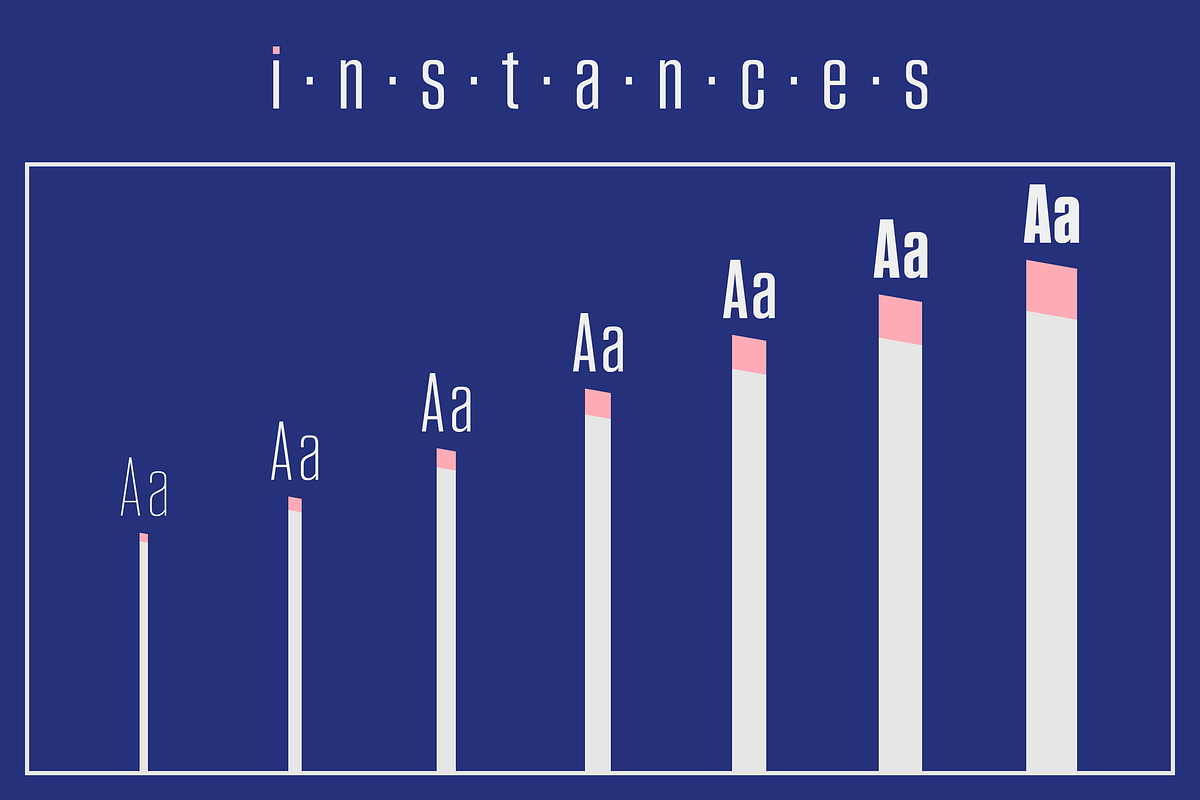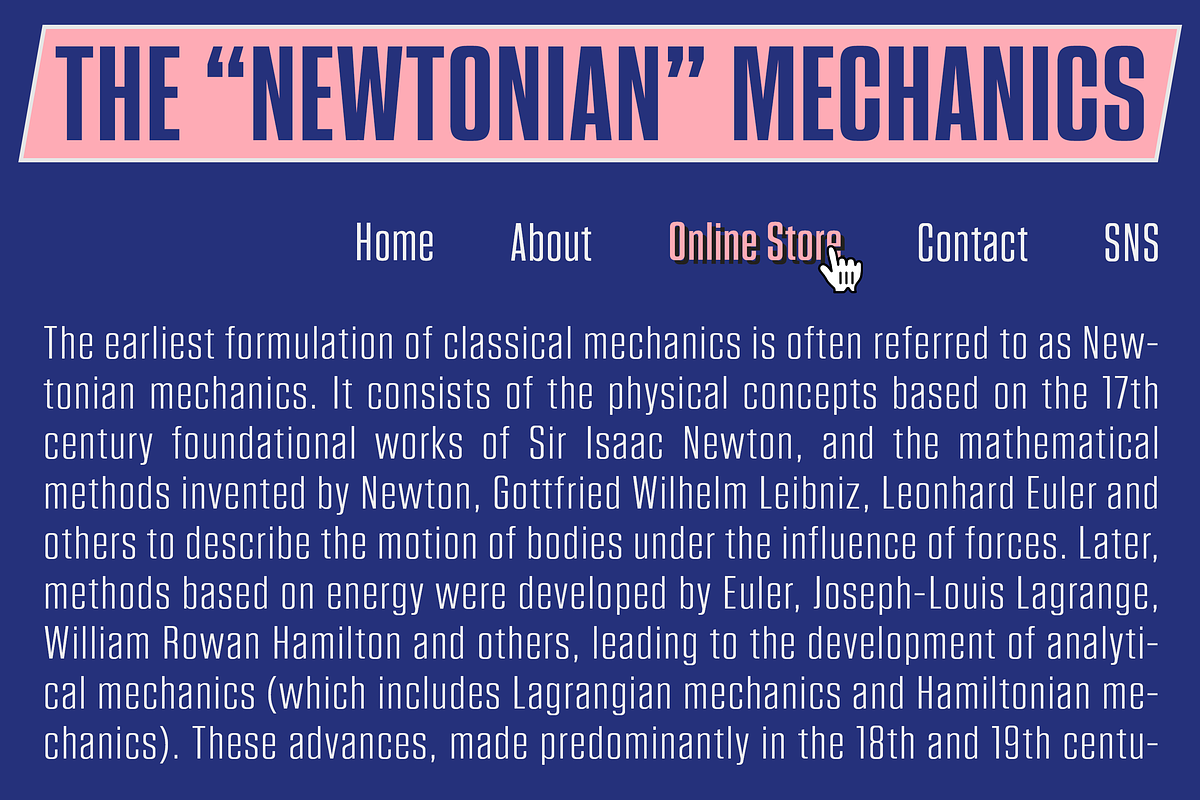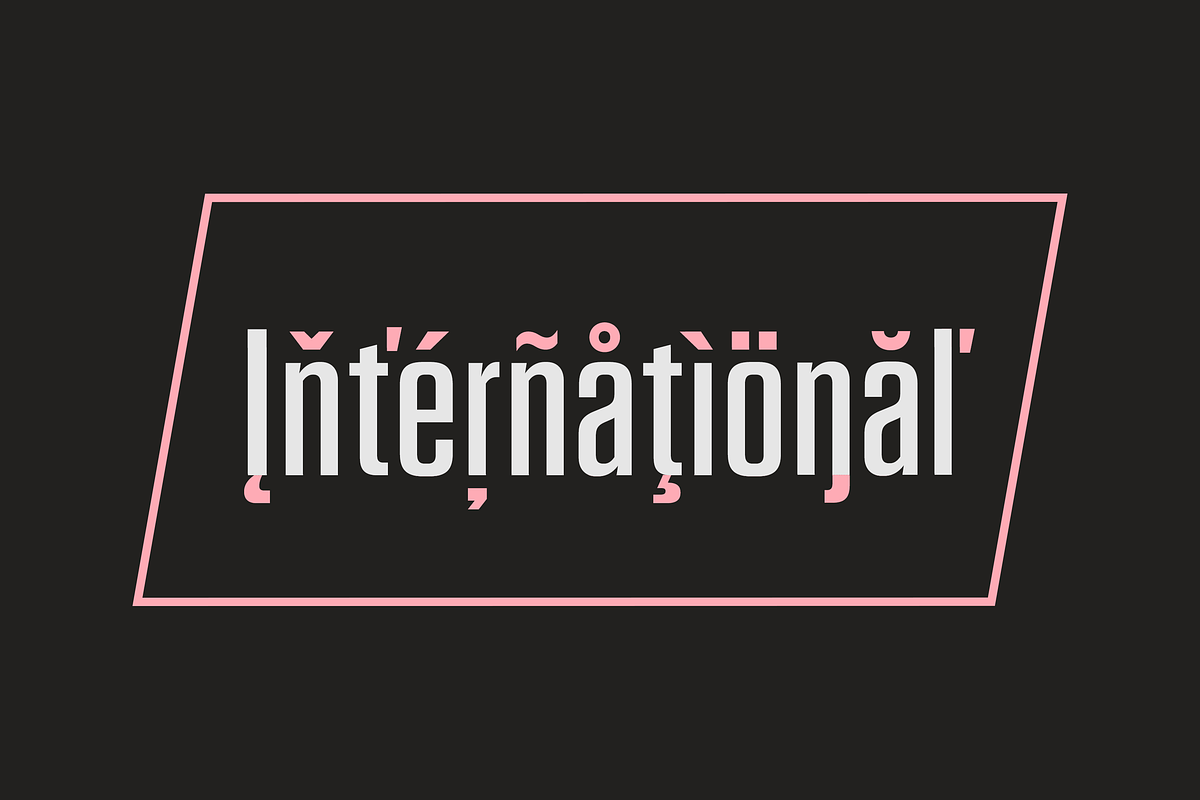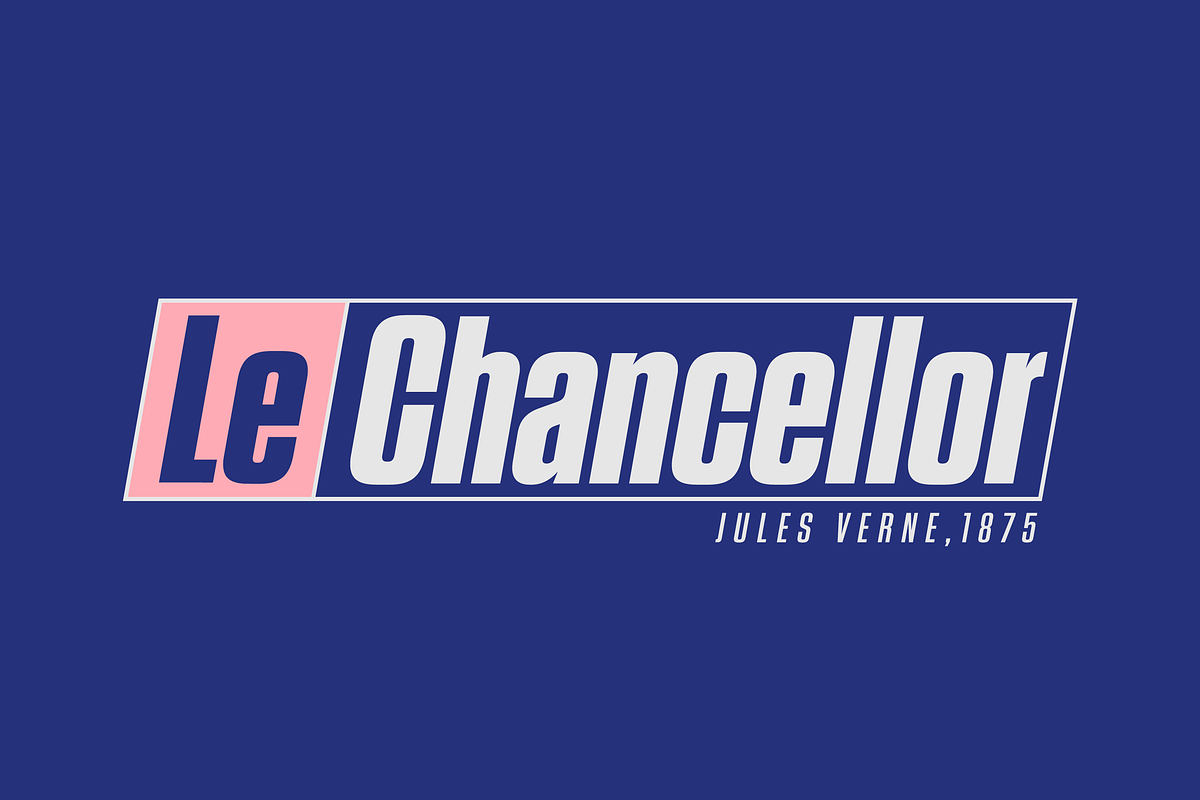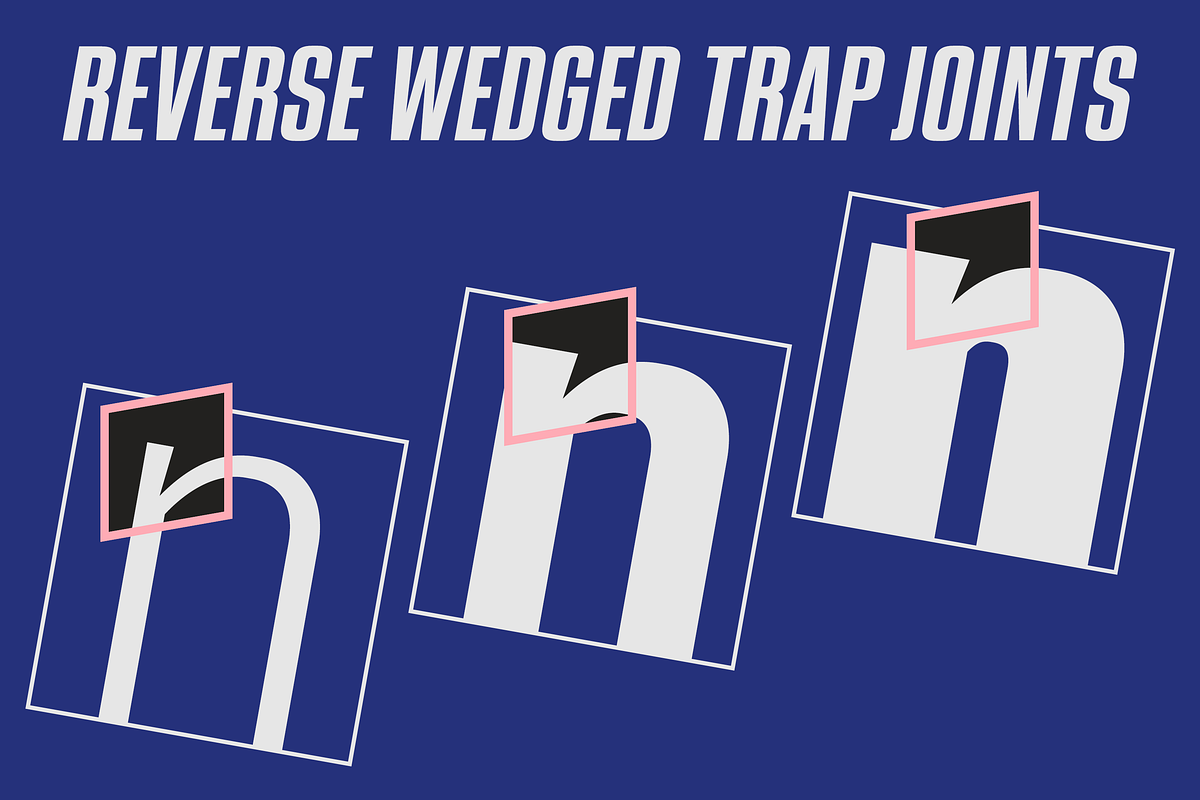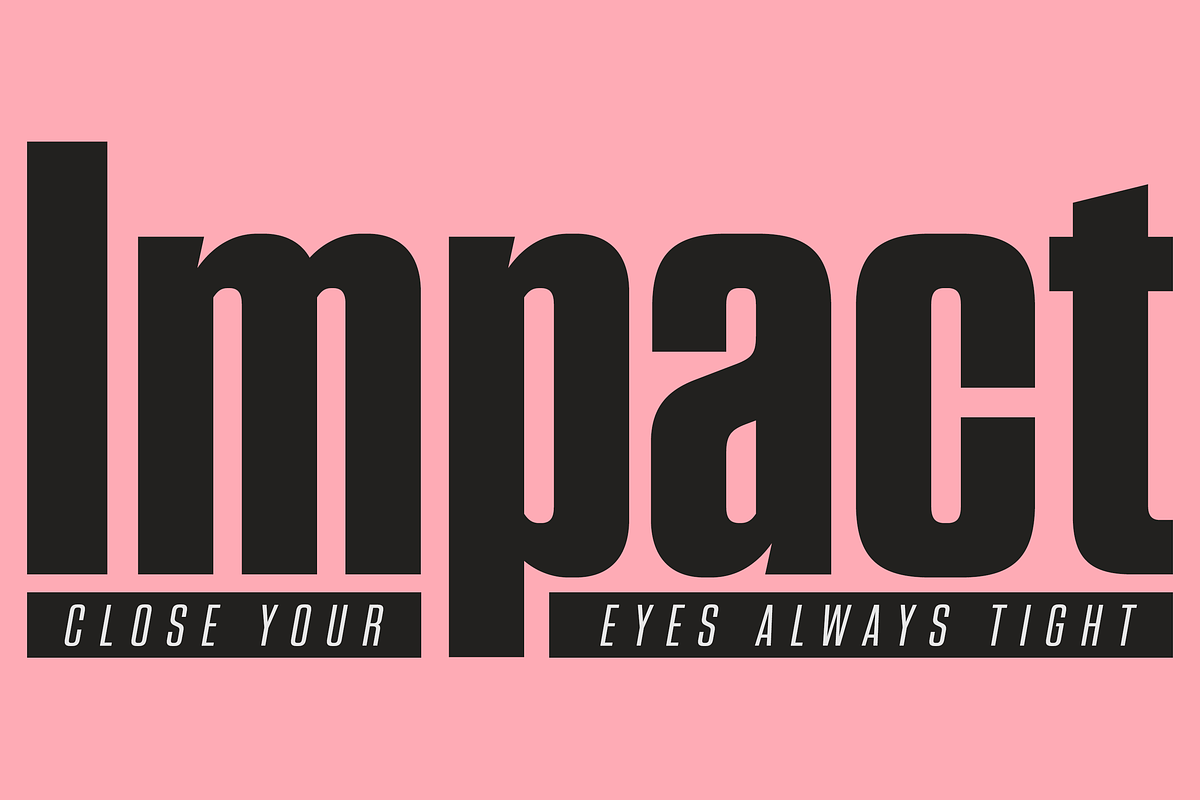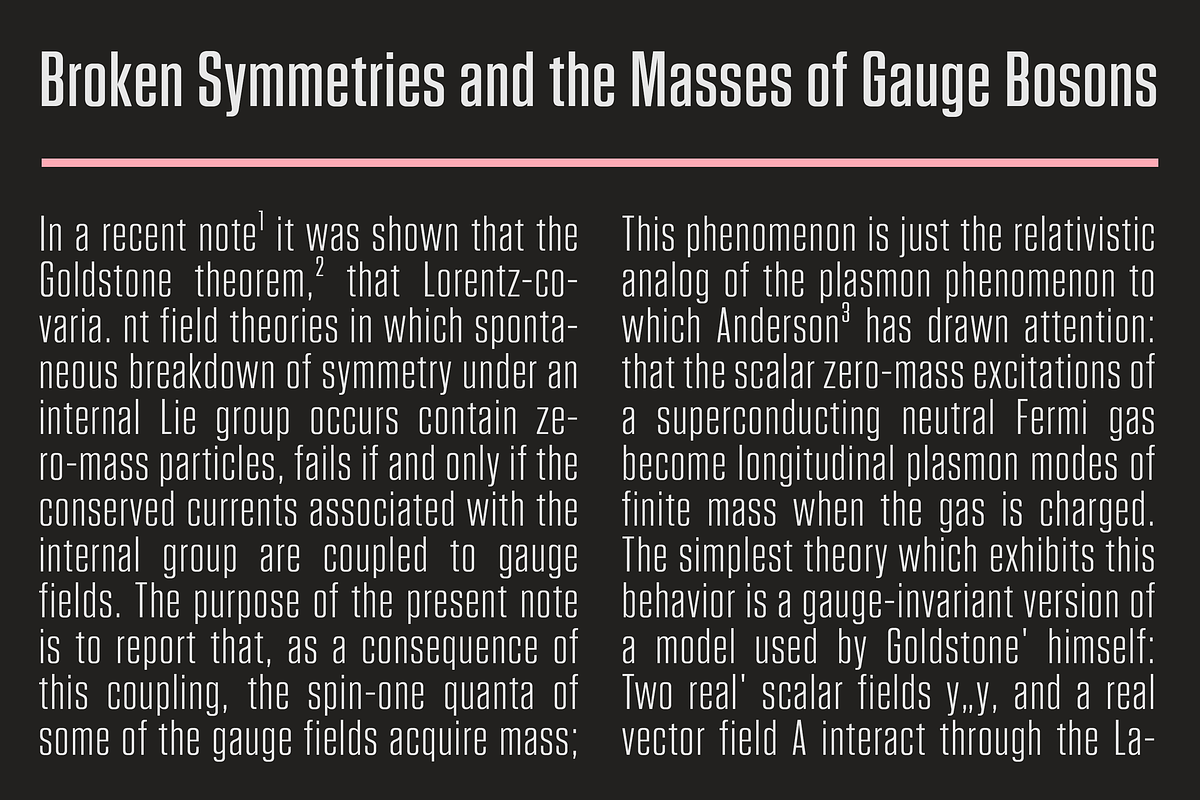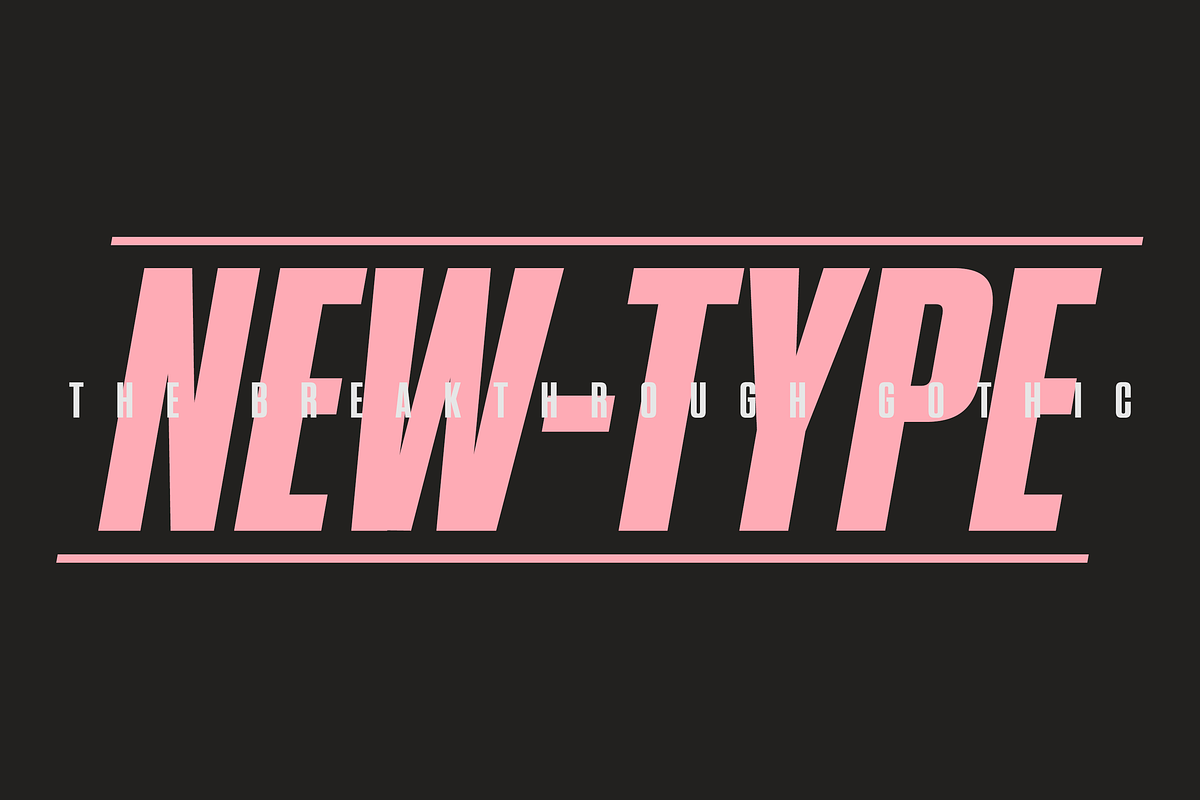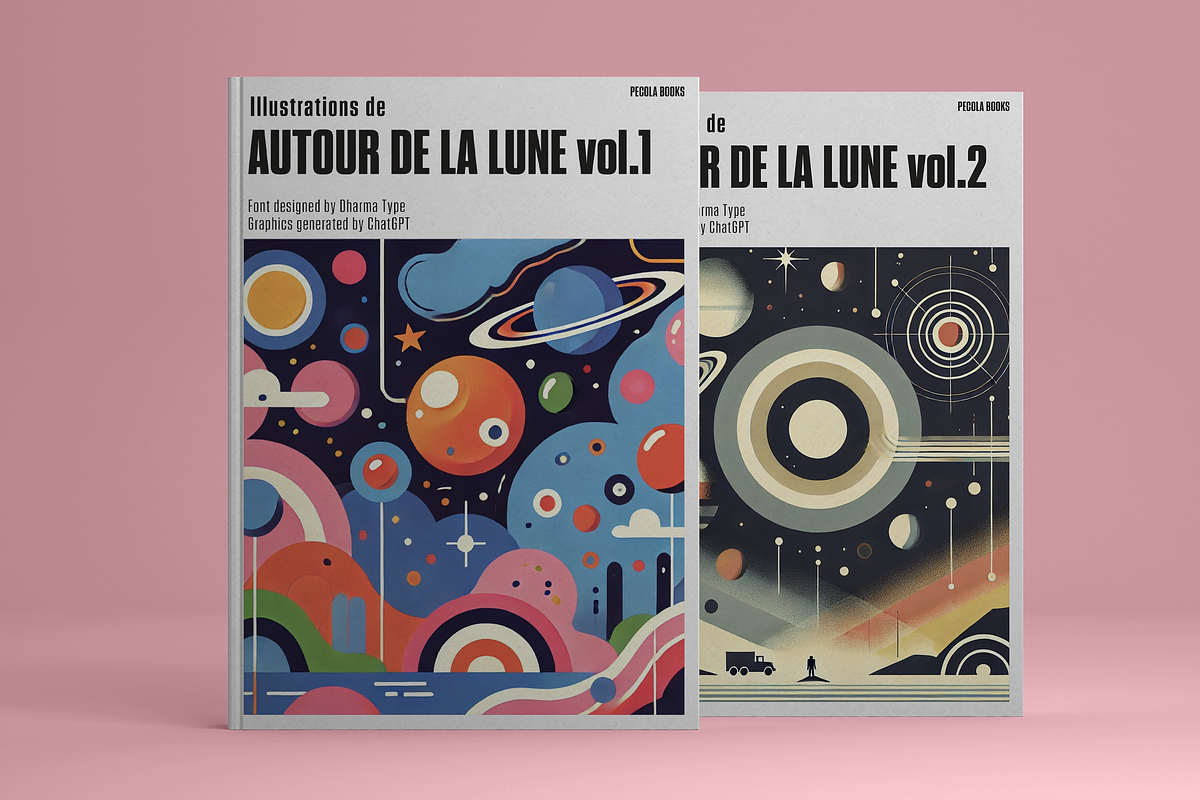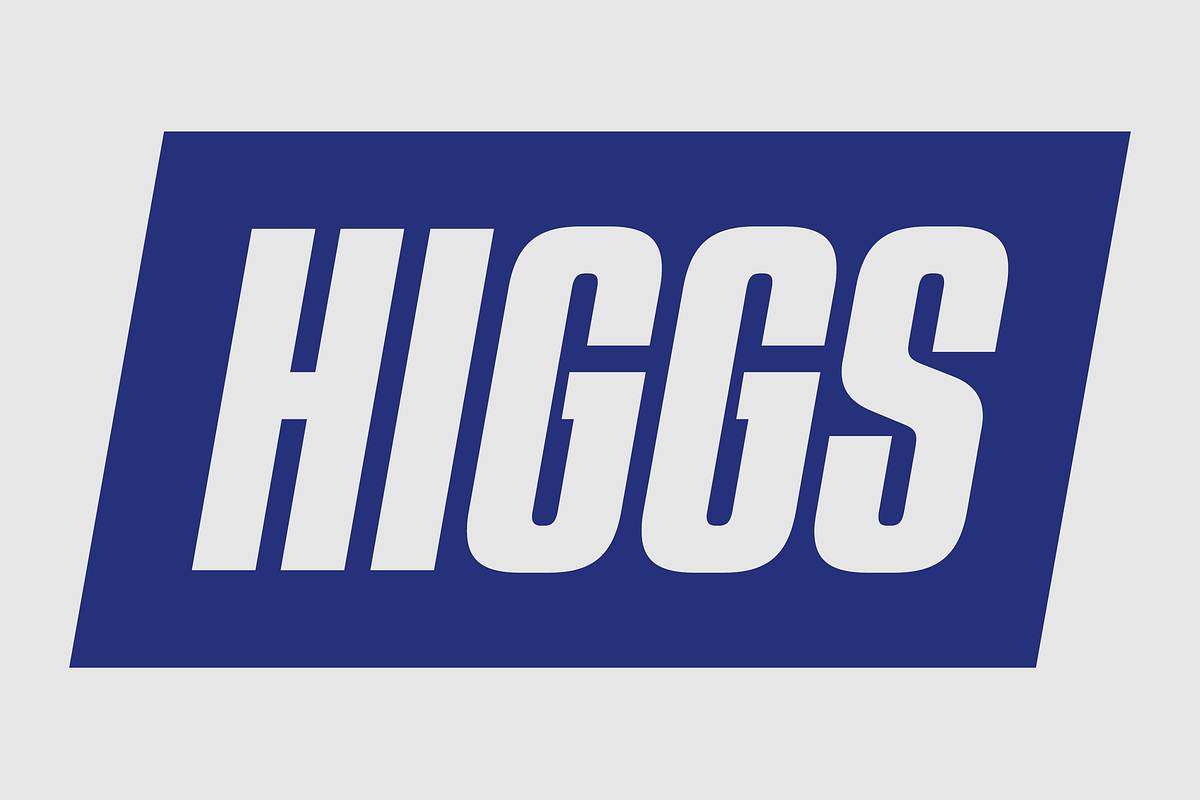
Higgs
This somewhat square-shaped and narrow typeface is designed based on the atmosphere of sci-fi movies and anime, while also drawing inspiration from wood typefaces commonly used in posters during the 1800s. At the junctions where stems and bowls meet, it features a reverse ink trap treatment, unlike conventional typefaces. This is one of its most distinctive characteristics. This unique feature gives the typeface a sharp, striking, and stylish appearance. The typeface family consists of seven weights, each with a corresponding italic style, and it supports a wide range of Latin-based languages.